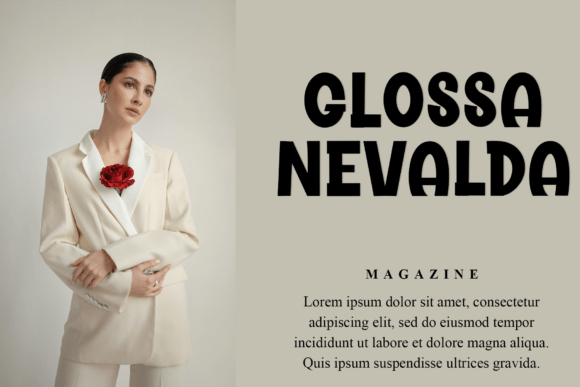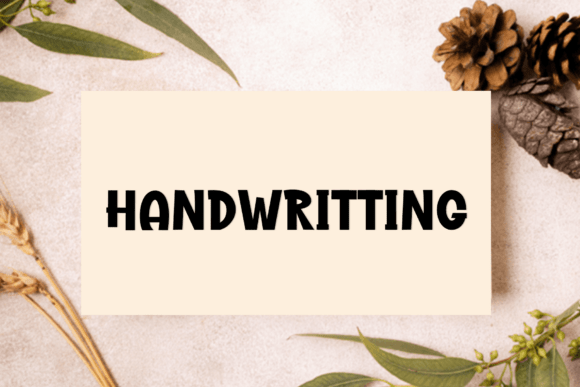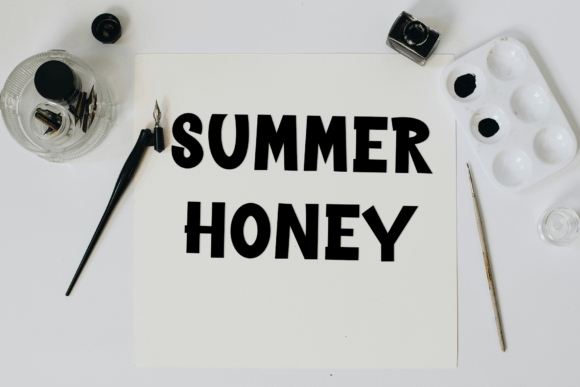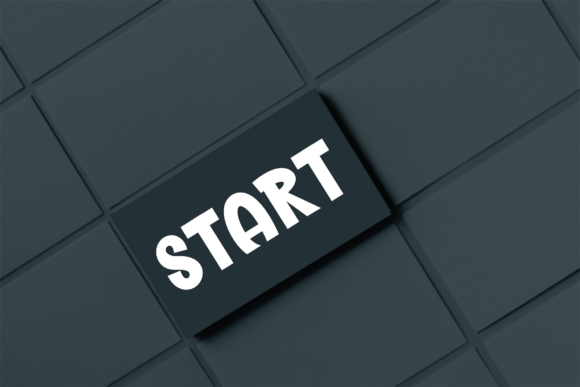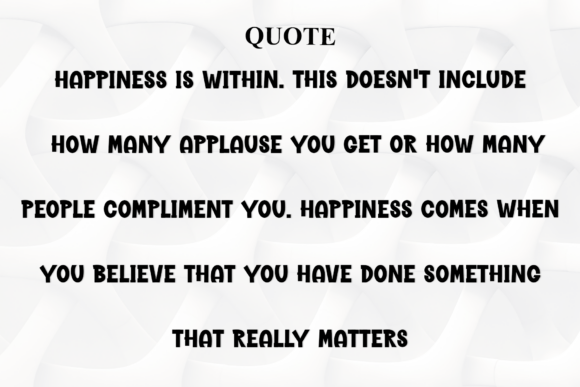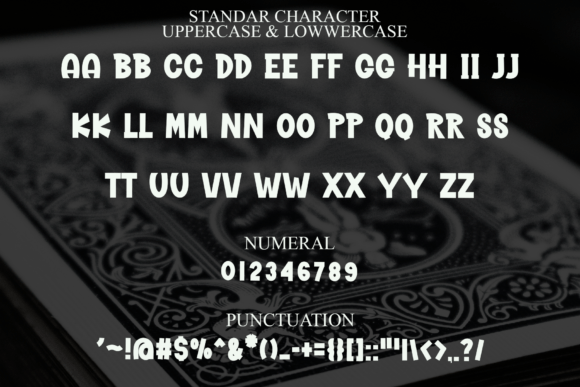
Introduction to Designer Holiday Font
Designer Holiday is a casual and creative font that exudes warmth and friendliness.
Key Features of Designer Holiday Font
Why Choose Designer Holiday Font?
Designer Holiday Font offers exceptional quality and versatility, making it a valuable addition to your design toolkit. Whether you’re creating for personal projects or commercial use, Designer Holiday Font delivers professional results.